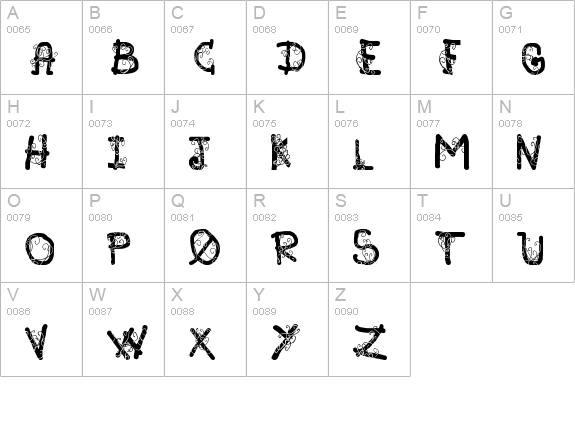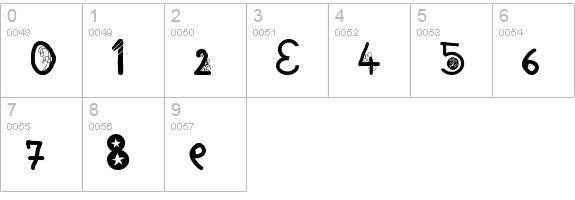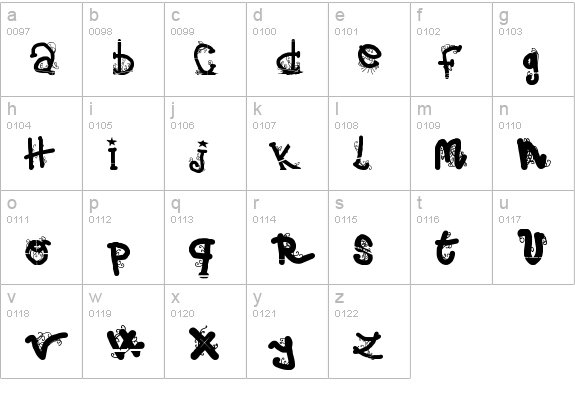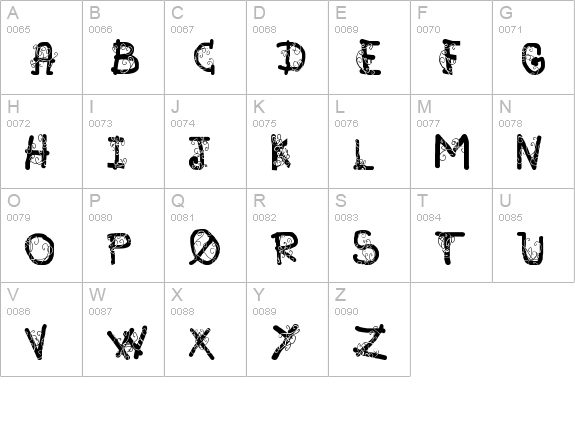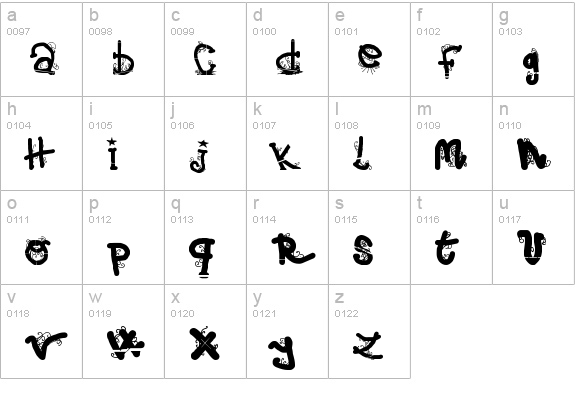
The (afGiHmtV)* font is a versatile and unique typeface that combines elegant curves with modern geometric elements. With its intricate details and striking design, this font is perfect for adding a touch of sophistication to your projects. Whether you're working on a branding campaign, website design, or any creative endeavor, the (afGiHmtV)* font is sure to make a statement. Best of all, this font is available for free download at FontsMarket.com. You can easily access and use this font to elevate your designs without any cost. Don't miss out on this fantastic opportunity to enhance your projects with the (afGiHmtV)* font today!